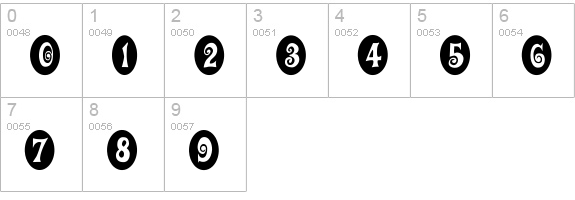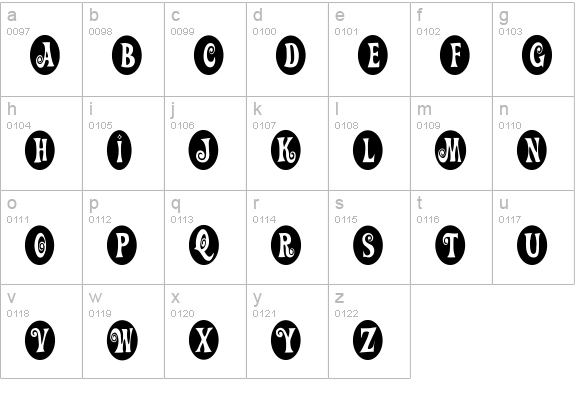
Action Is The Sequel font is a dynamic and bold typeface that exudes energy and movement. With its strong lines and sharp edges, this font is perfect for creating eye-catching designs that demand attention. Whether you're working on posters, flyers, or digital artwork, Action Is The Sequel font will add a touch of action and excitement to your project. And the best part? Action Is The Sequel font is available for free download at FontsMarket.com. That's right, you can get your hands on this powerful font without spending a dime. So why wait? Give your designs the action-packed boost they need with Action Is The Sequel font today!